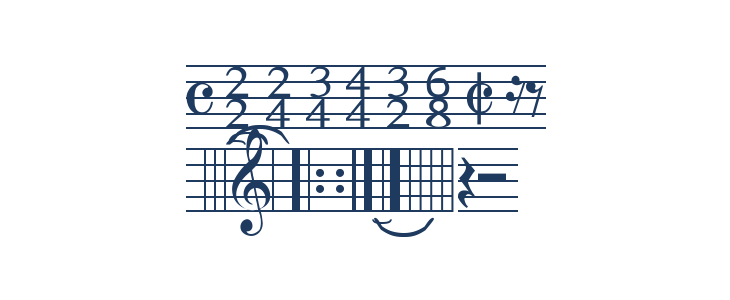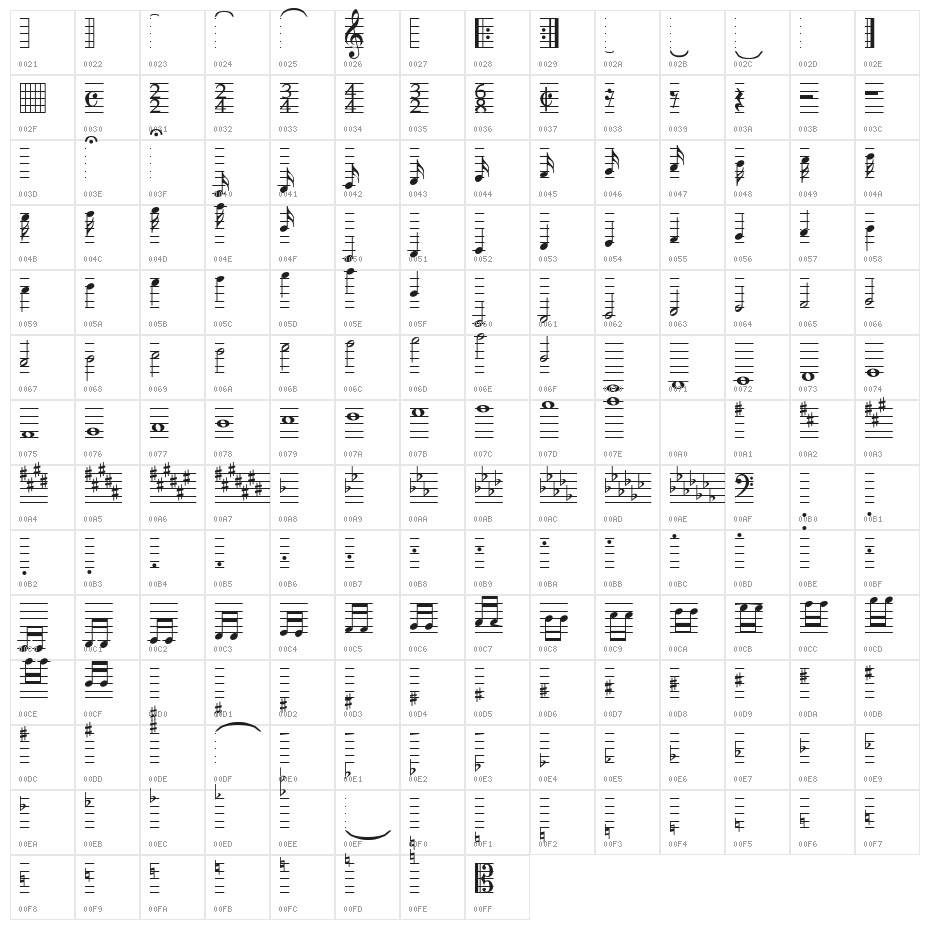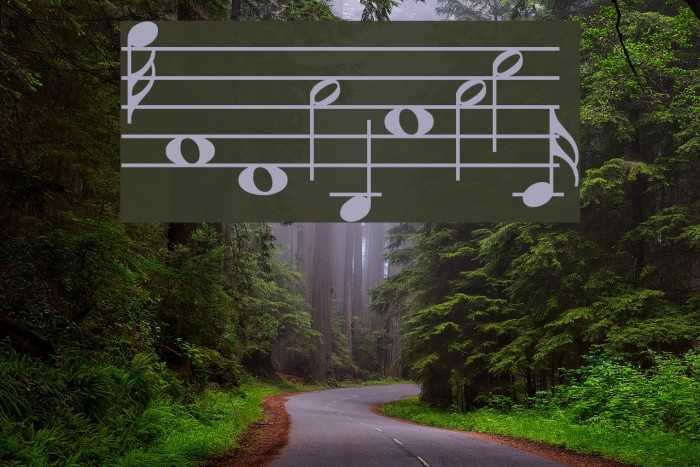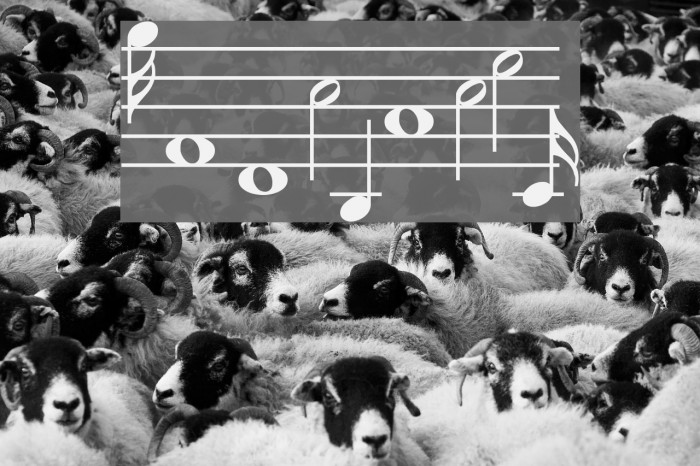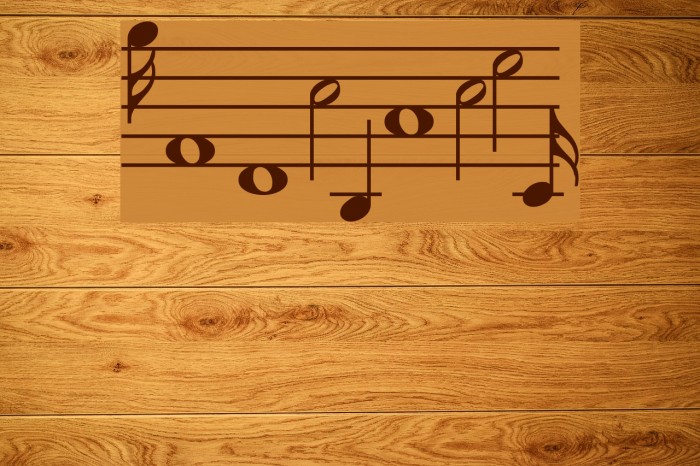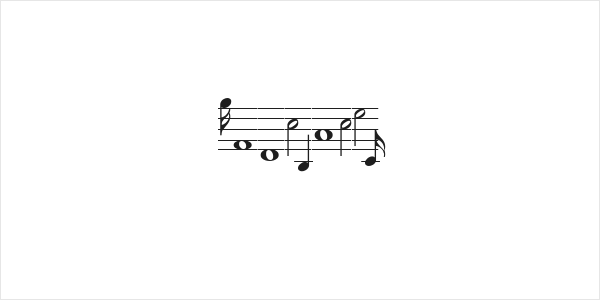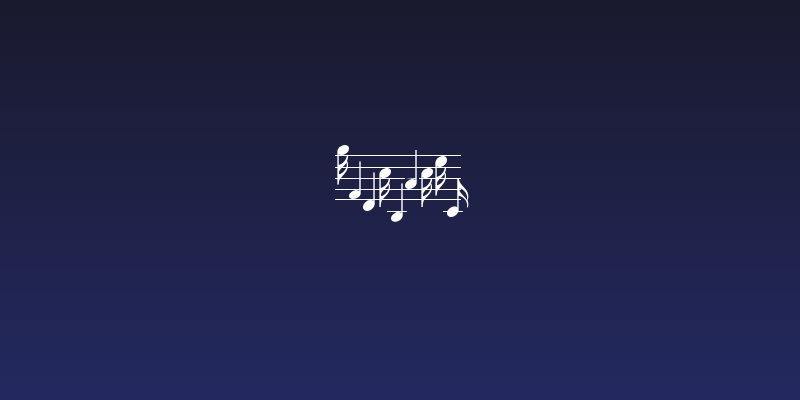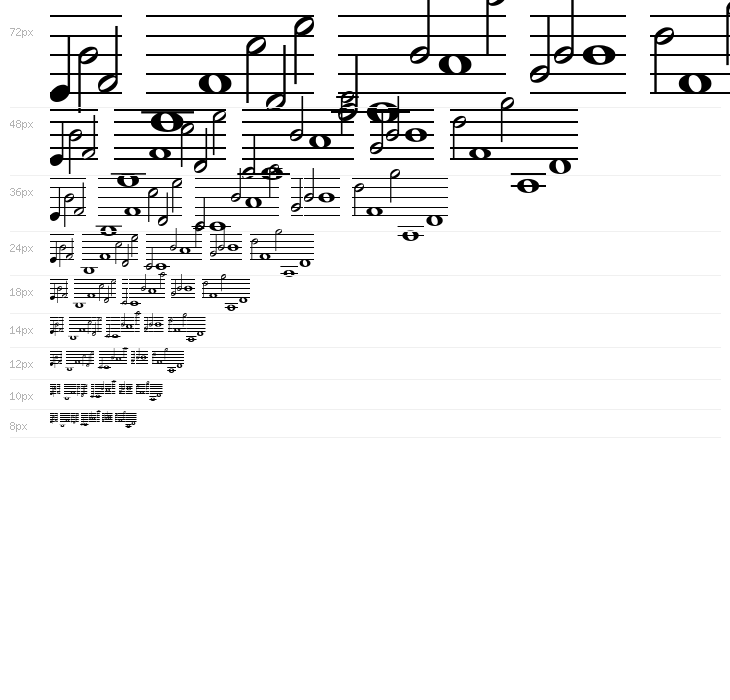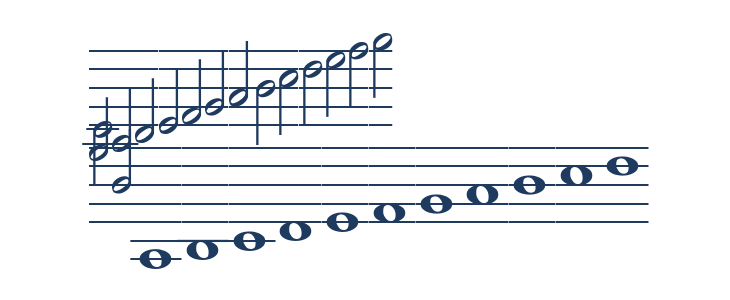
MusiQwikB Font
MusiQwikB Description
A specialized music notation font featuring musical symbols such as notes, clefs, time signatures, and staff lines. The glyphs are bold, highly legible, and designed for clear representation of musical elements rather than traditional alphanumeric characters.
Overall StyleDecorative, Functional
Use CaseMusic notation, Educational materials, Sheet music
Proposed ProjectsSheet music publishing, music education materials, digital music notation software, instructional books.